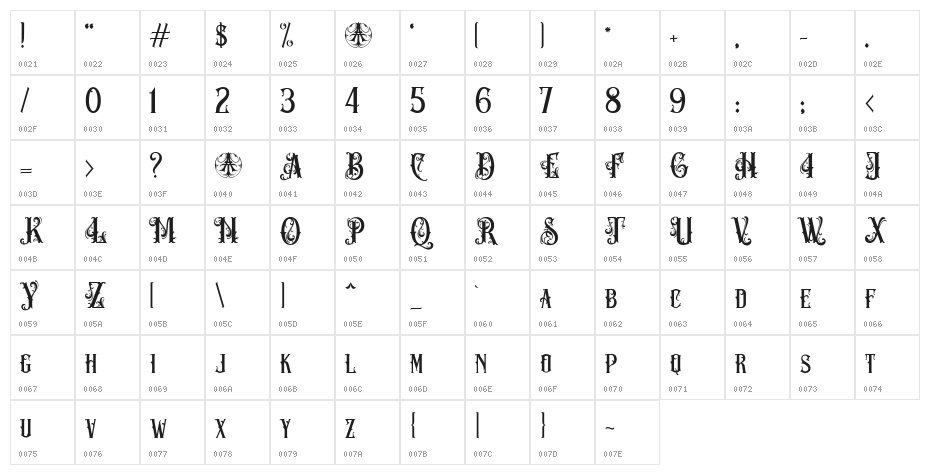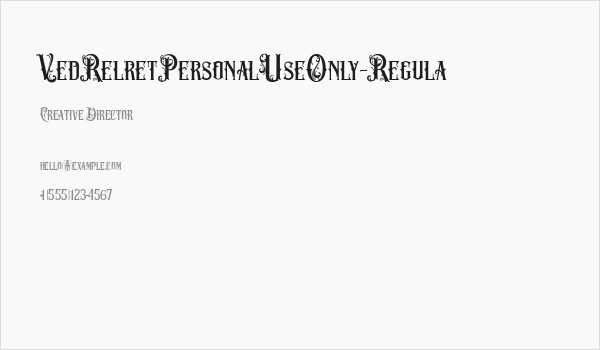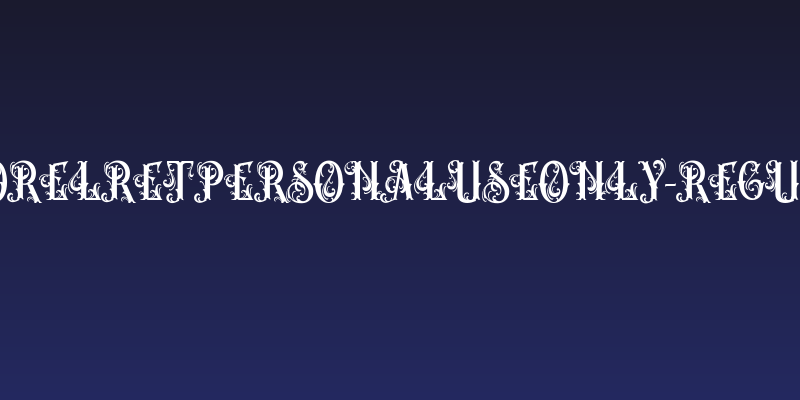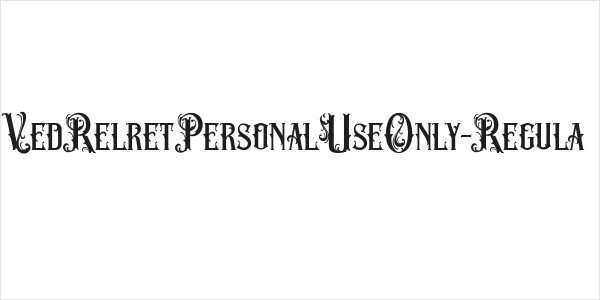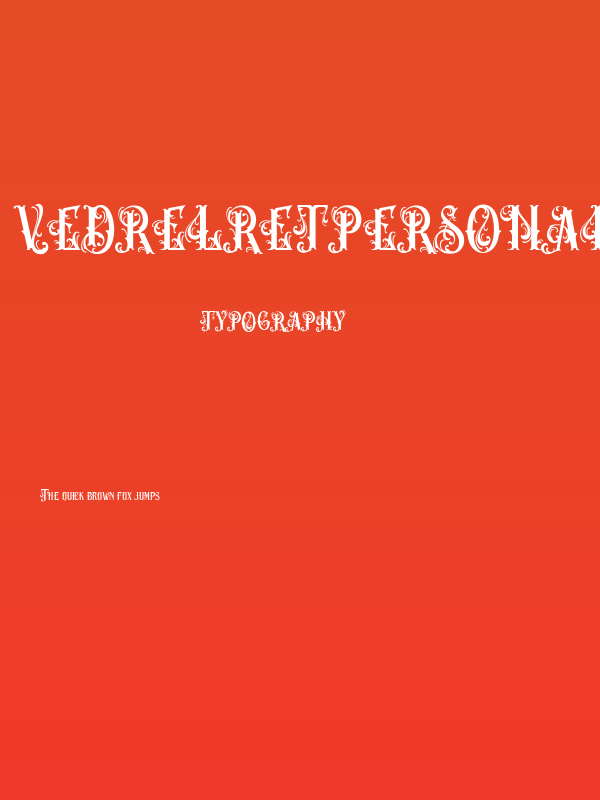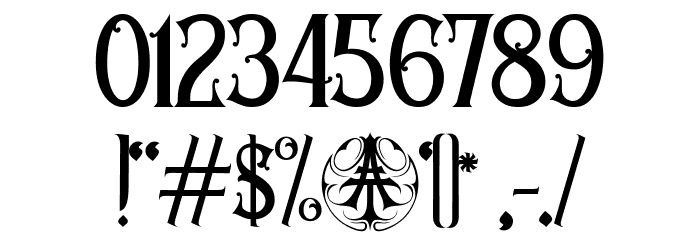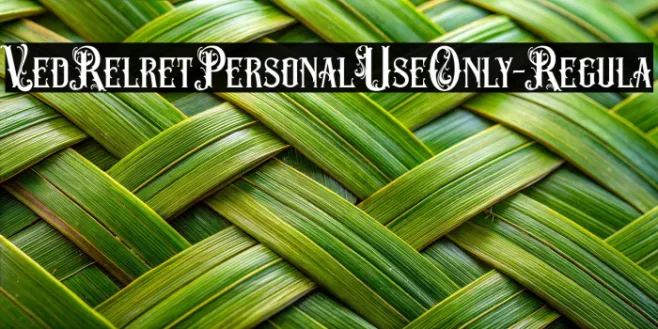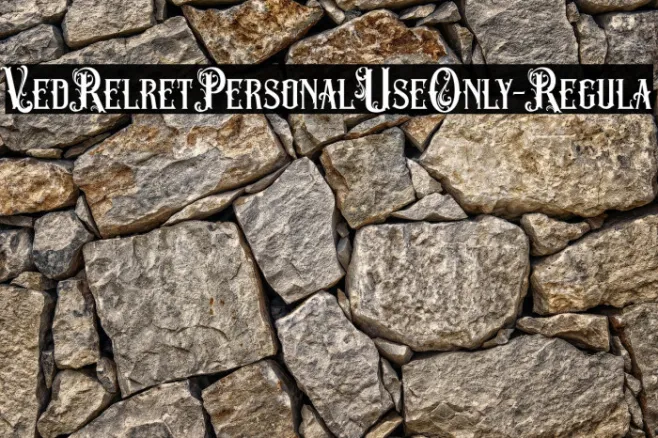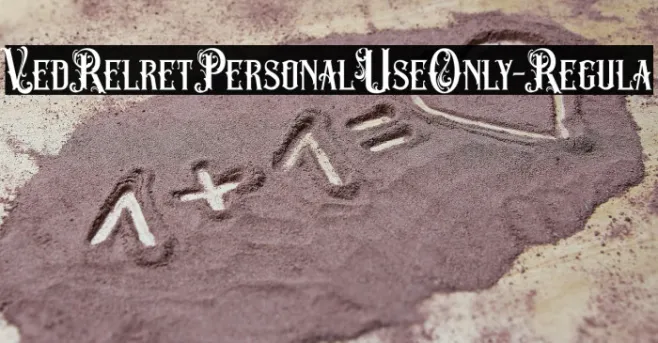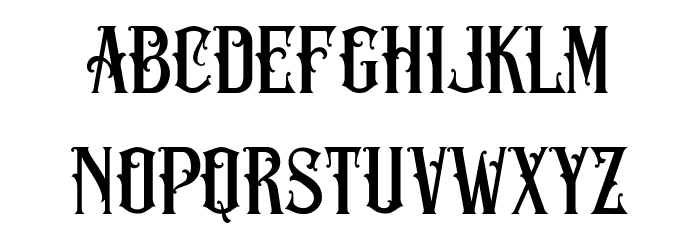
VedRelretPersonalUseOnly-Regula Font
VedRelretPersonalUseOnly-Regula Description
This font features an ornate and decorative style, characterized by intricate swirls and embellishments that extend from the main strokes of each letter. The uppercase letters are particularly elaborate, with flourishes that give a sense of elegance and sophistication. The lowercase letters maintain a similar decorative theme but are slightly more restrained, allowing for readability while still retaining the font's unique style. The numerals and special characters are consistent with the overall design, incorporating the same ornamental elements. This font is ideal for creating a dramatic and eye-catching effect, suitable for projects that require a touch of vintage flair and artistic expression.